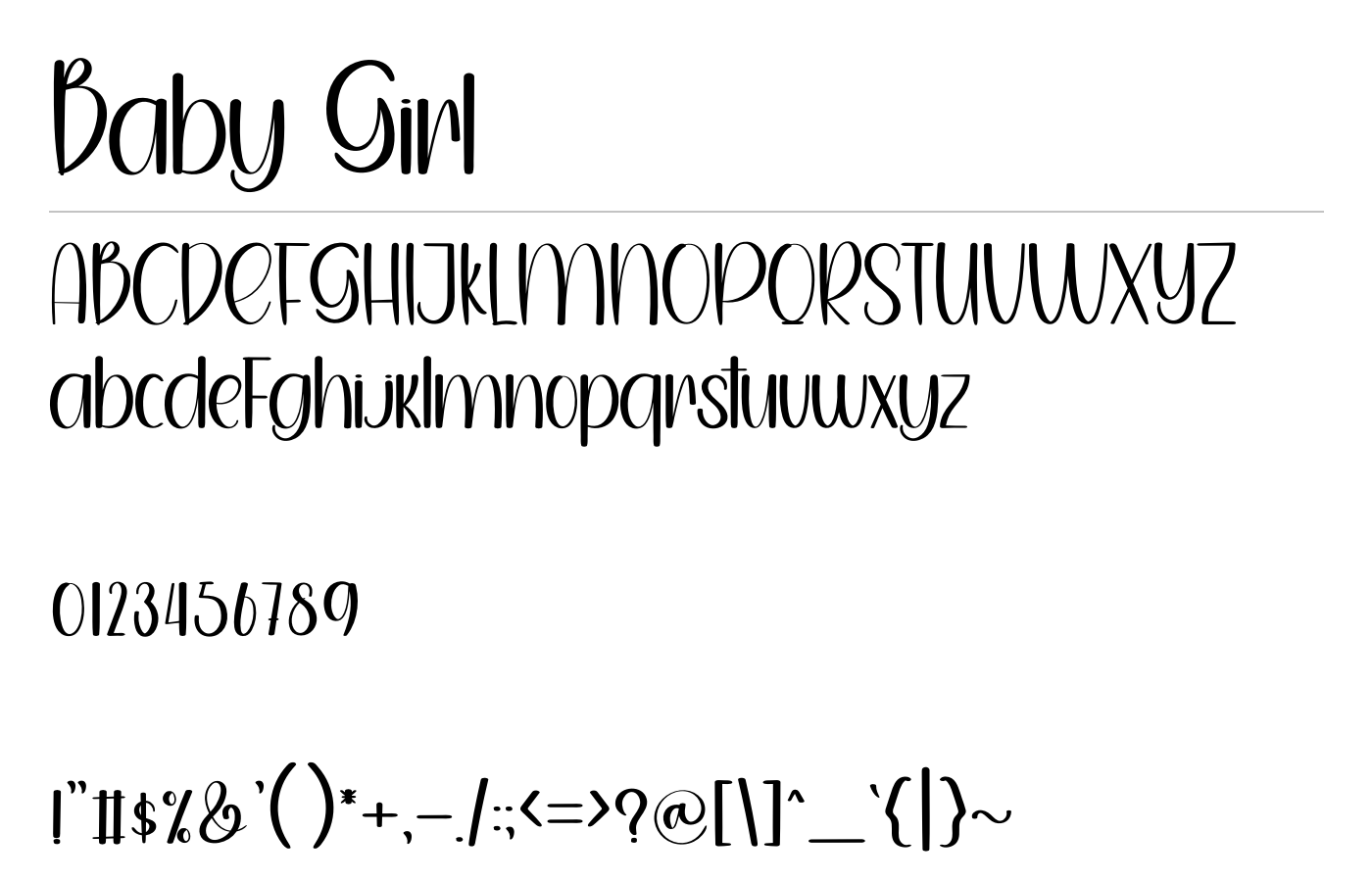
Baby Girl Font is a playful and slender handwritten sans serif with tall, narrow letterforms and whimsical curves that give it a friendly, youthful charm. Its light weight, delicate strokes, and quirky details make it perfect for designs that want to convey innocence, creativity, and fun, such as children's products, casual branding, or playful invitations. This font works best in headlines and decorative use where its unique character can shine without sacrificing legibility.
Baby Girl Font
About Baby Girl Font